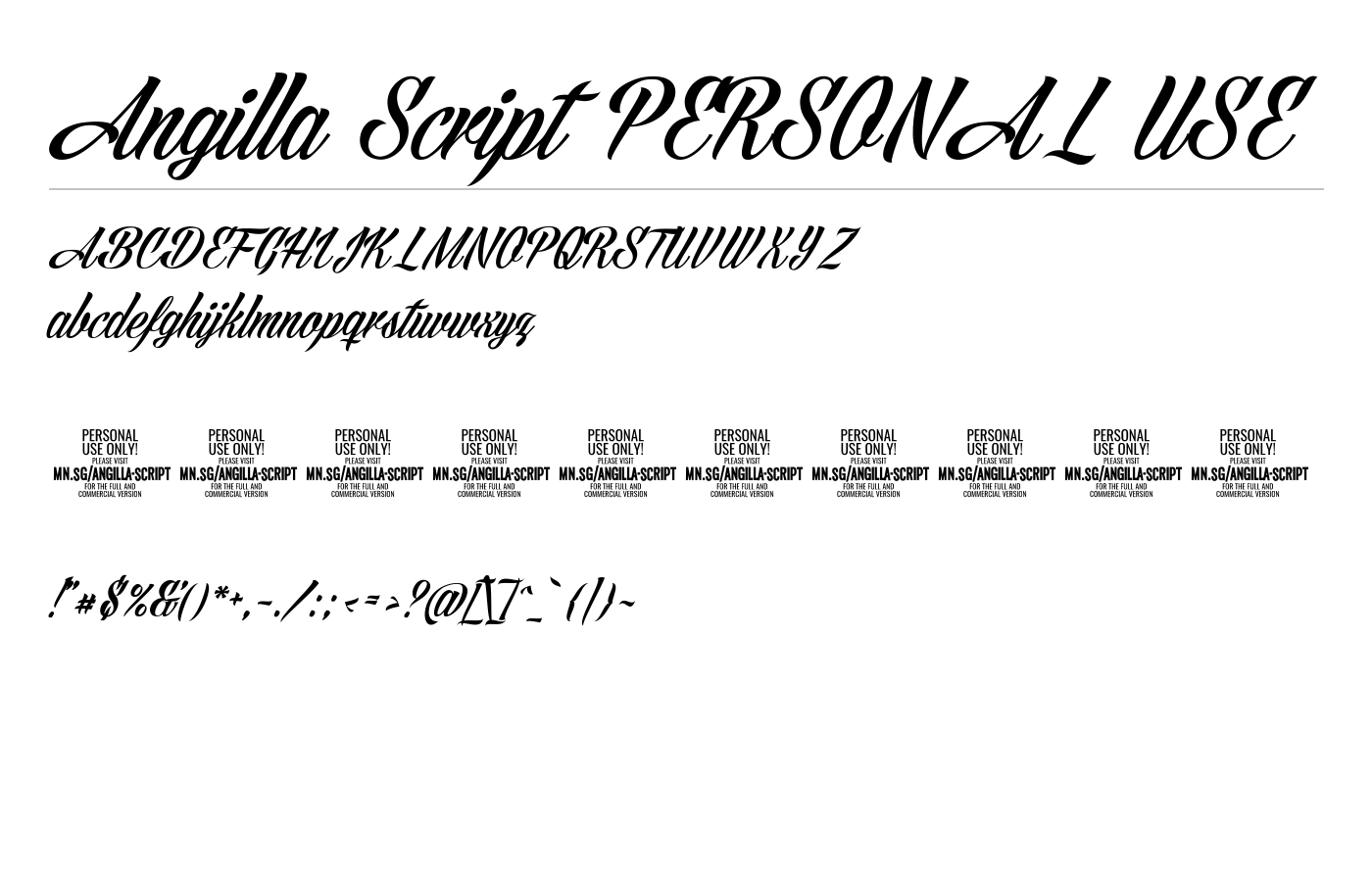
Angilla Script is an elegant and flowing script font characterized by its smooth, connected strokes and a slight slant that adds sophistication and grace. With its fine, calligraphic lines and high contrast between thick and thin strokes, this font exudes a classic, refined personality perfect for invitations, branding, and packaging where a personal, handwritten touch is desired. Its stylish uppercase and lowercase forms give it versatility for decorative headlines and elegant displays, conveying a sense of luxury and timeless beauty.
Angilla Script PERSONAL USE Font
About Angilla Script PERSONAL USE Font
| Font family | Angilla Script PERSONAL USE Font |